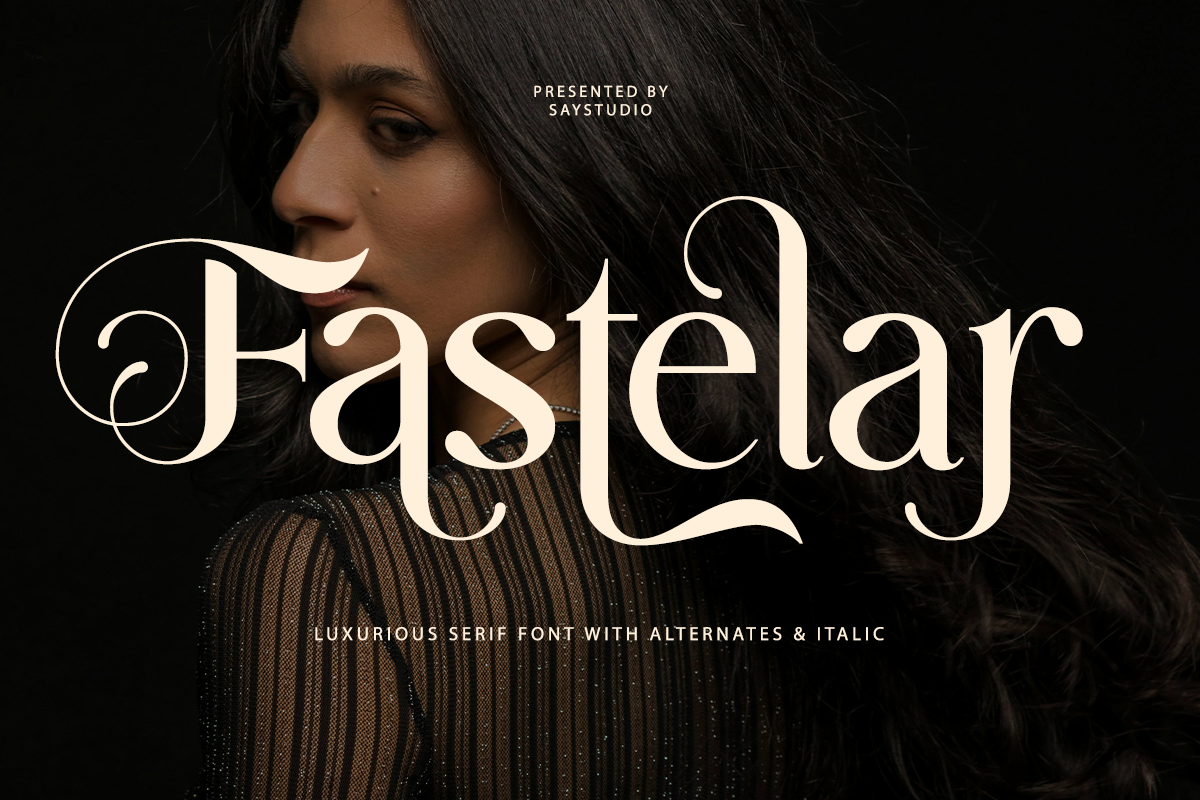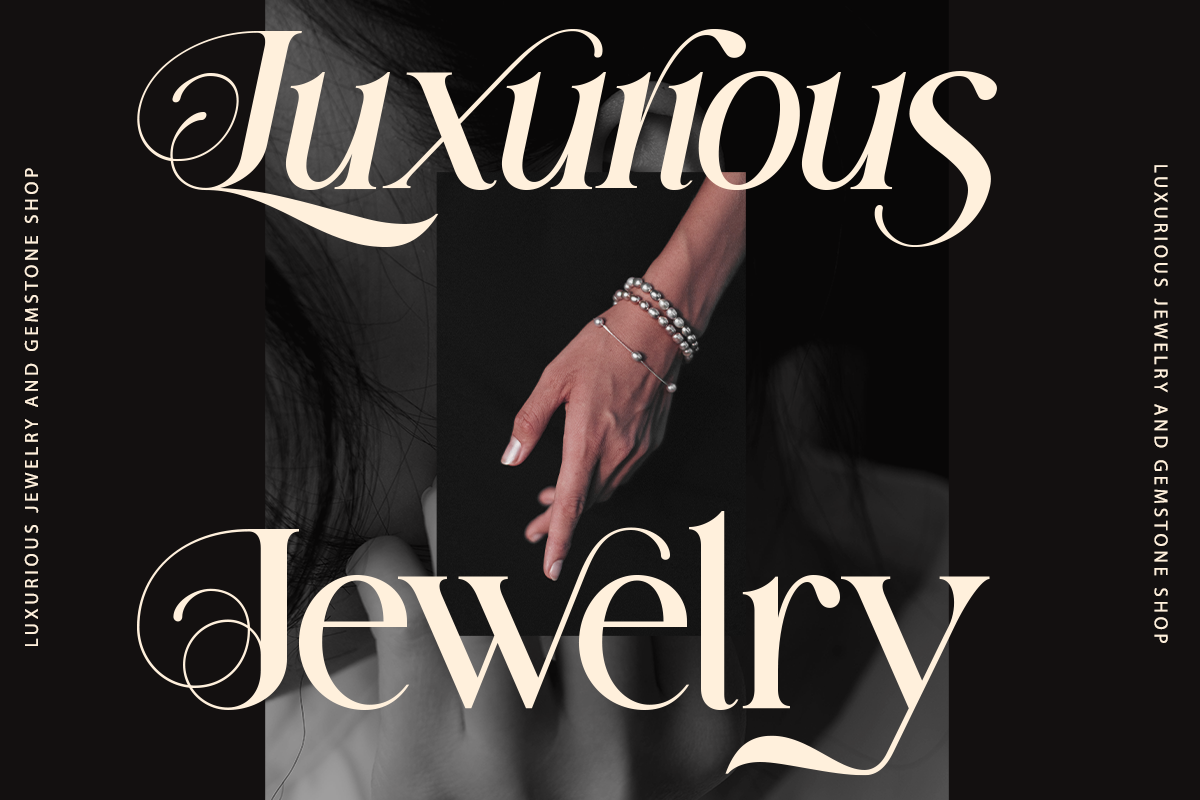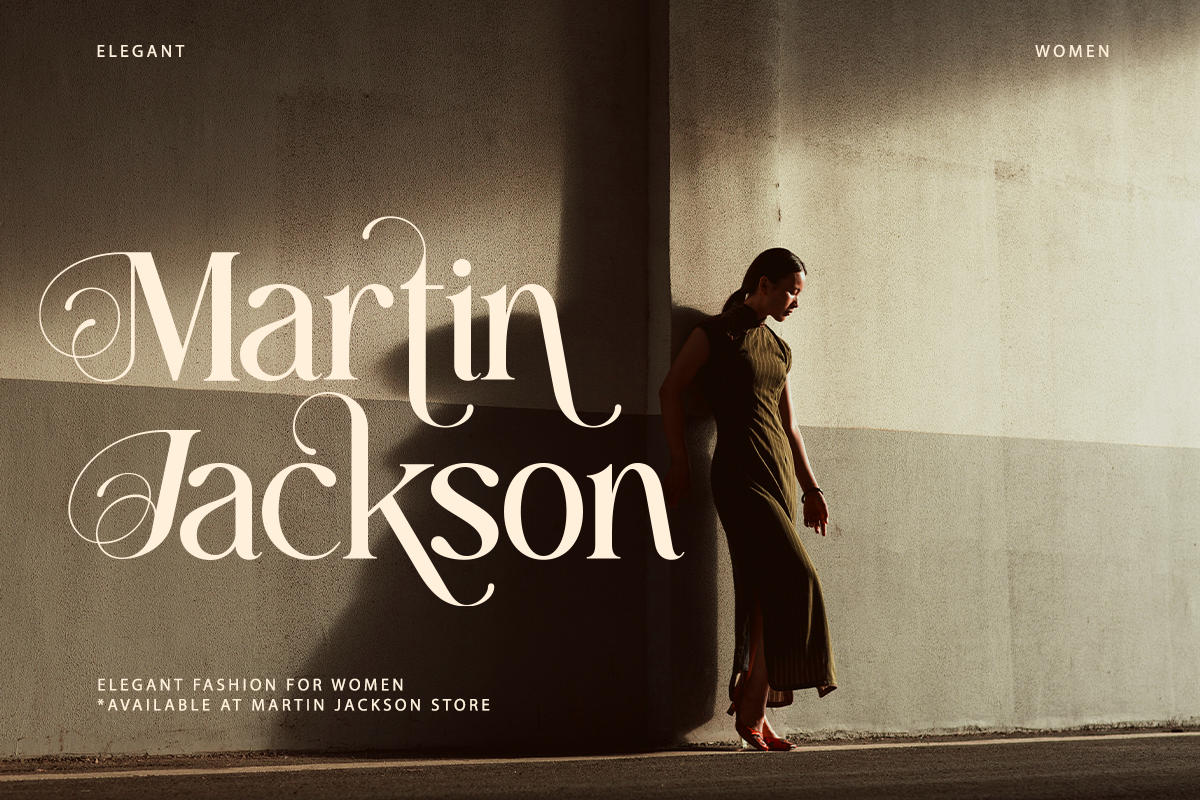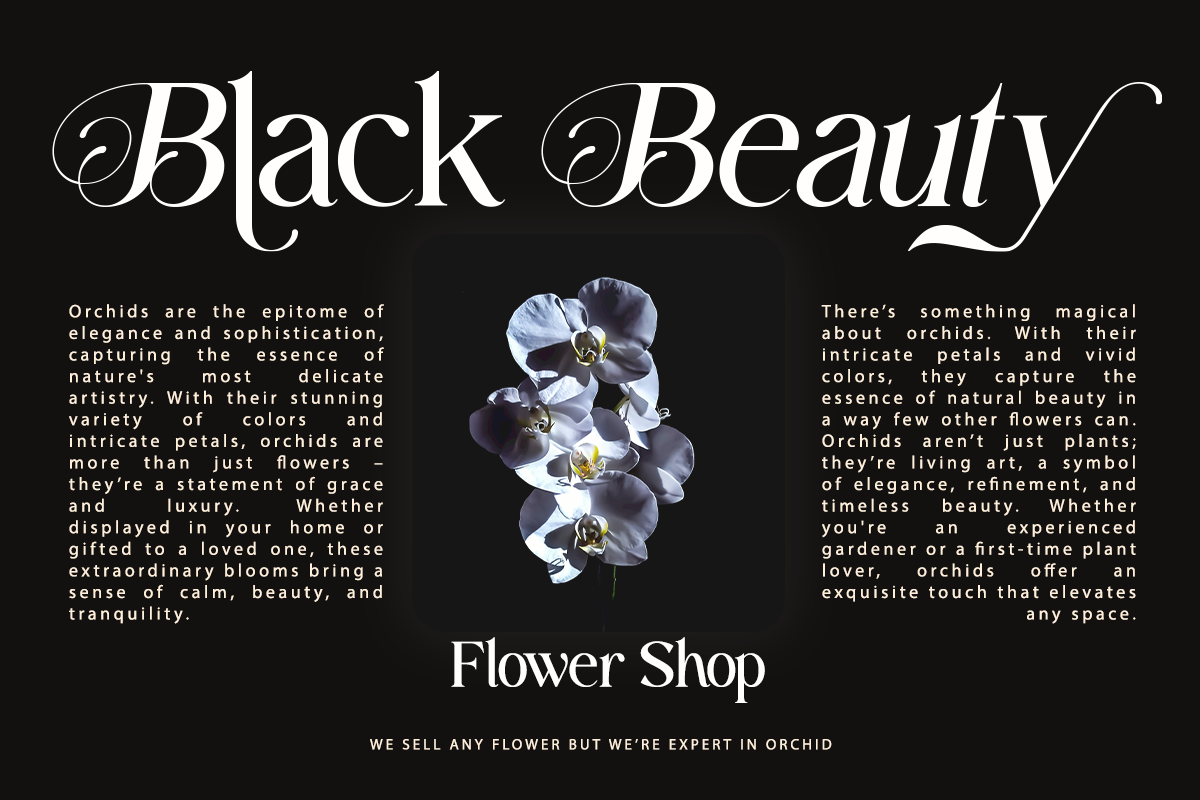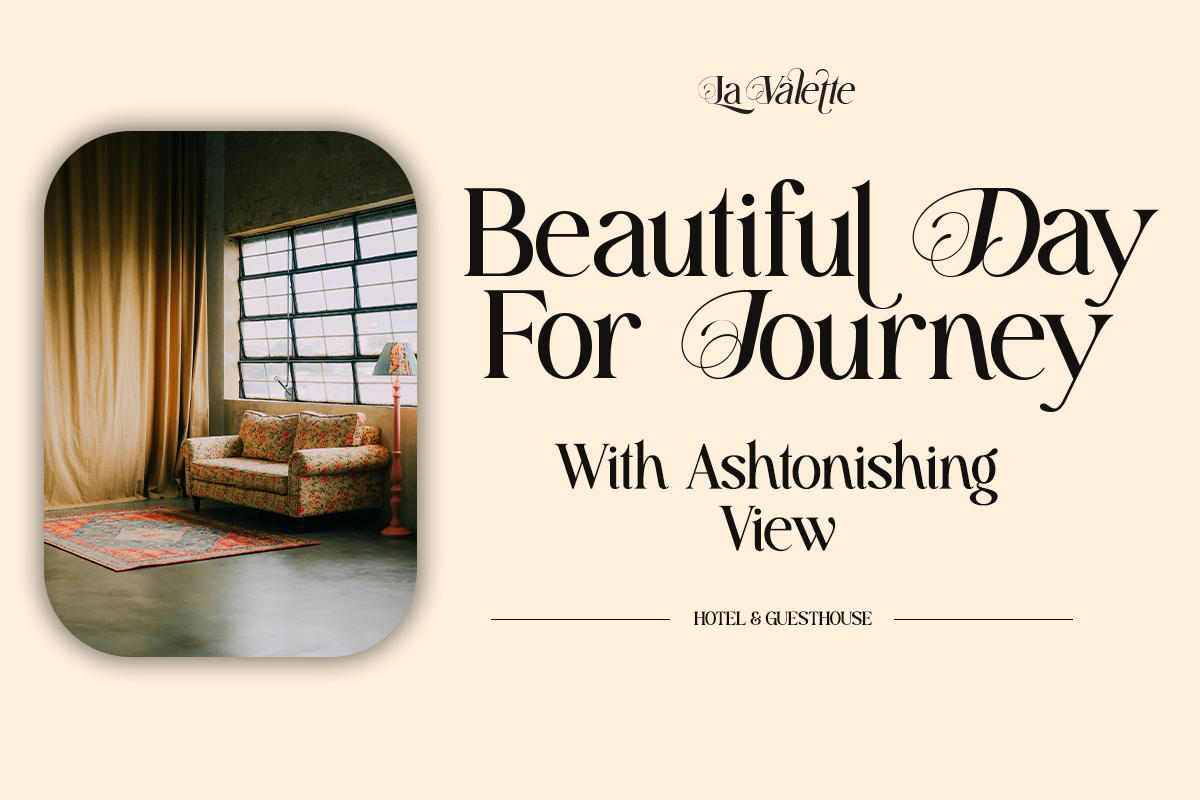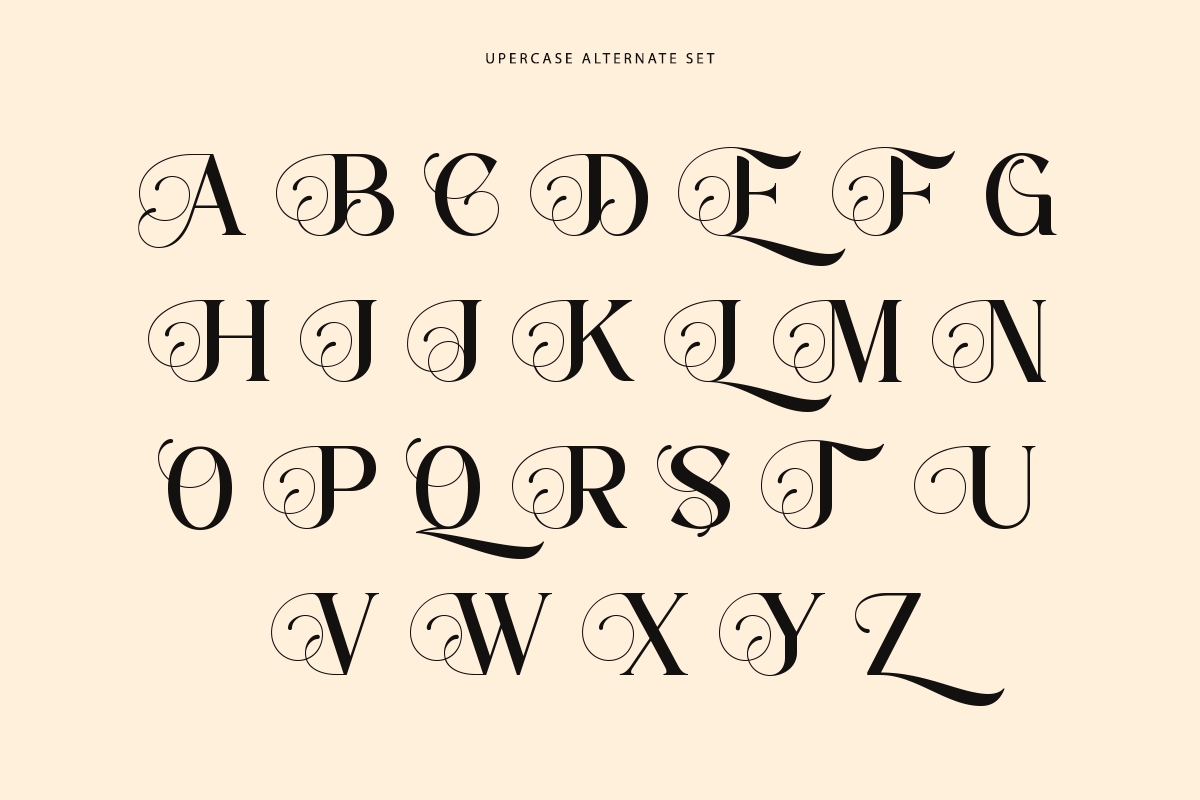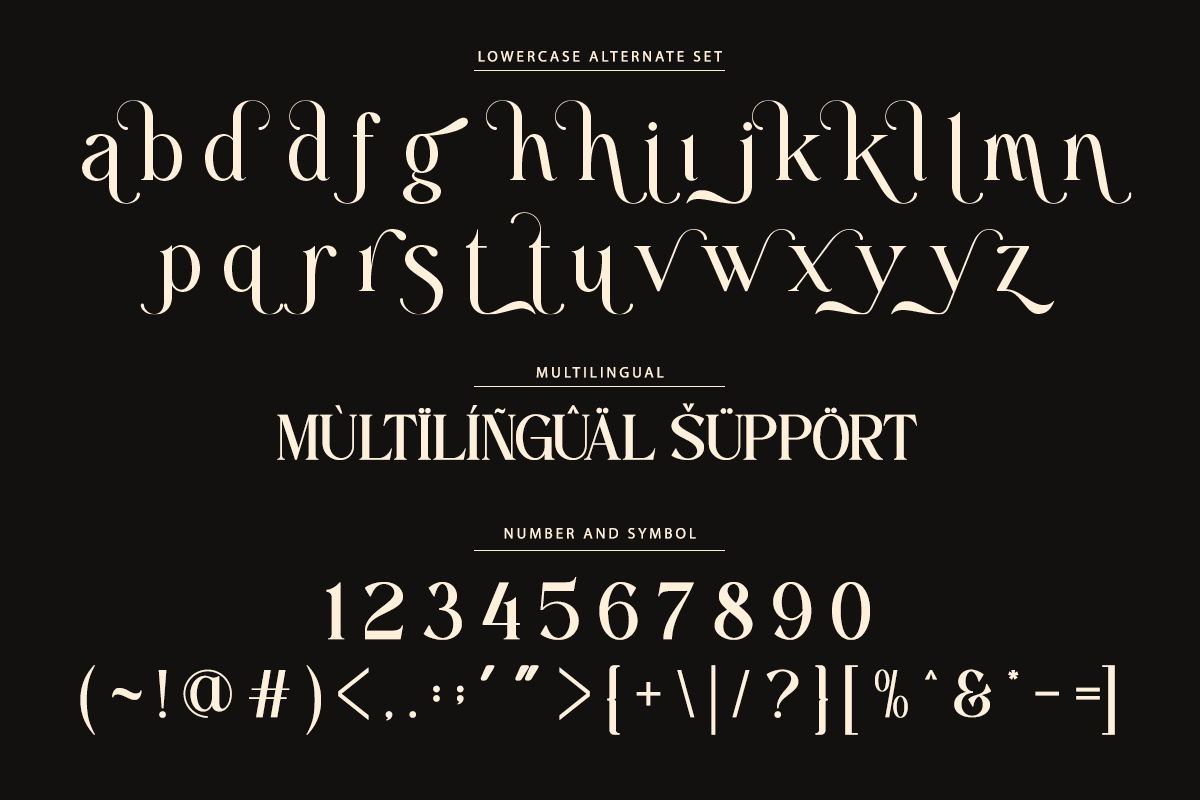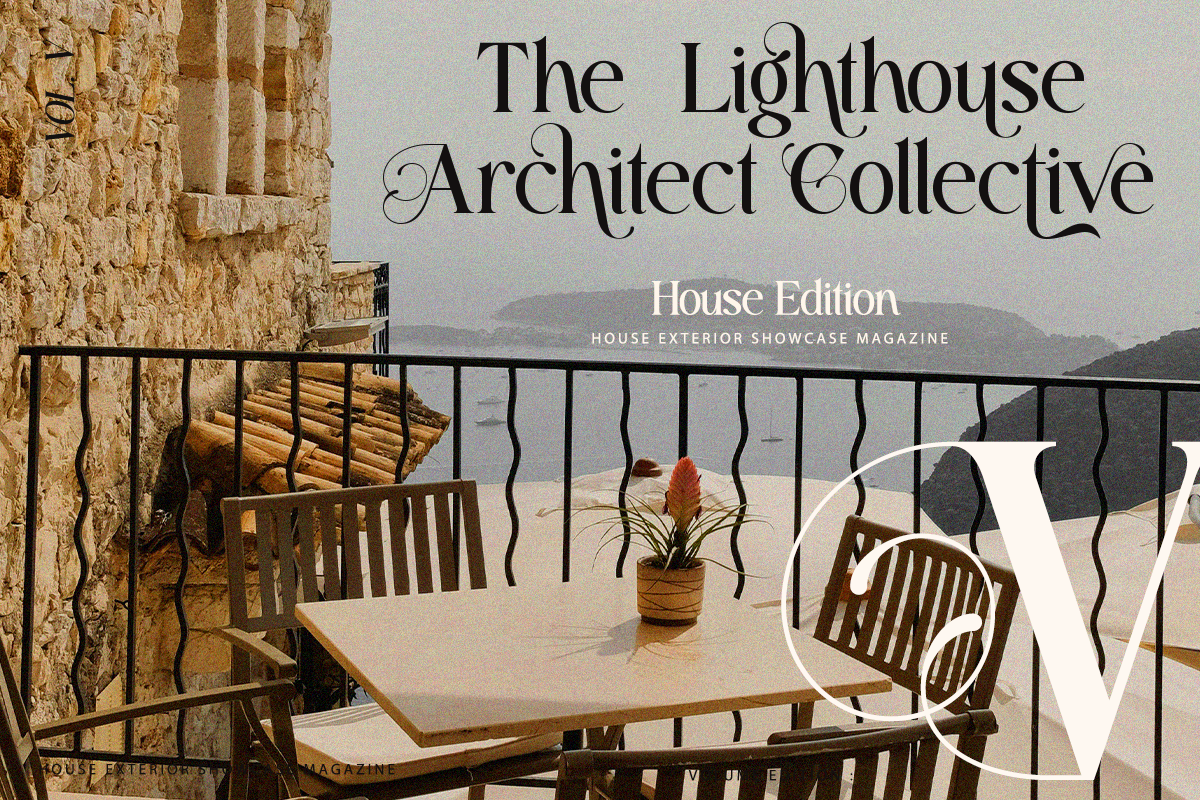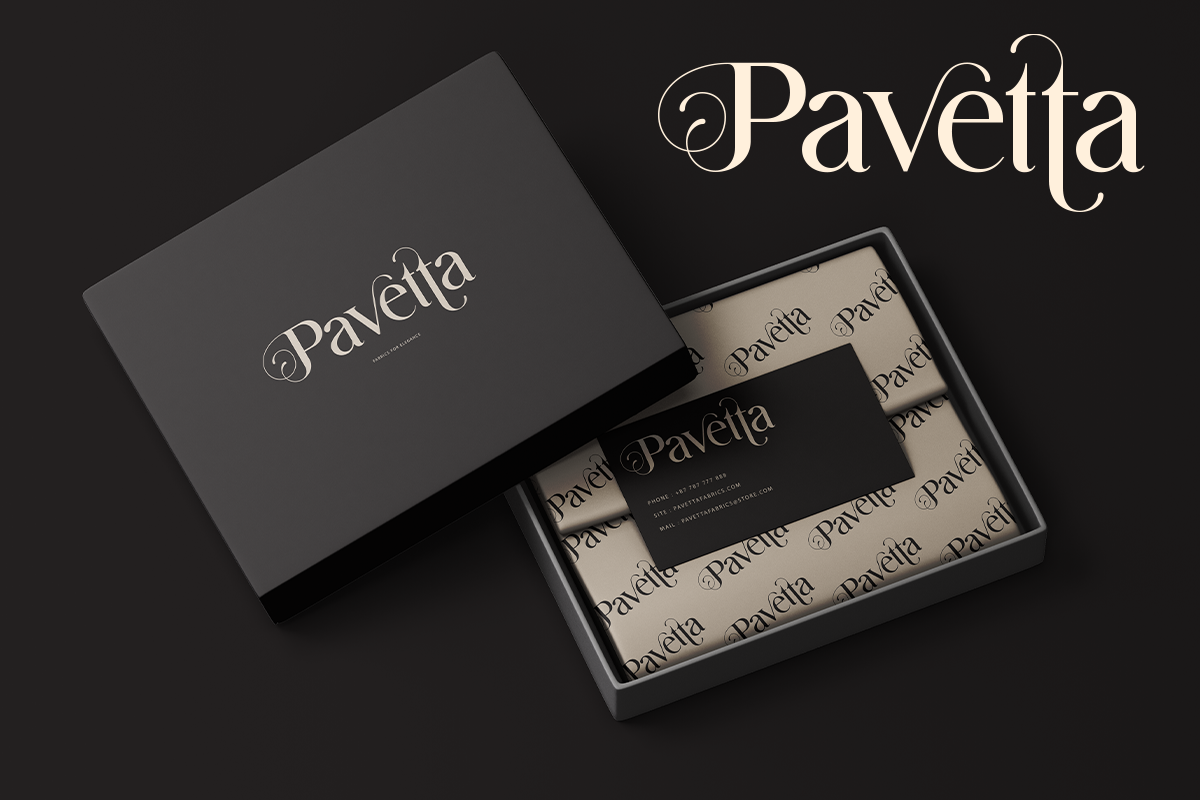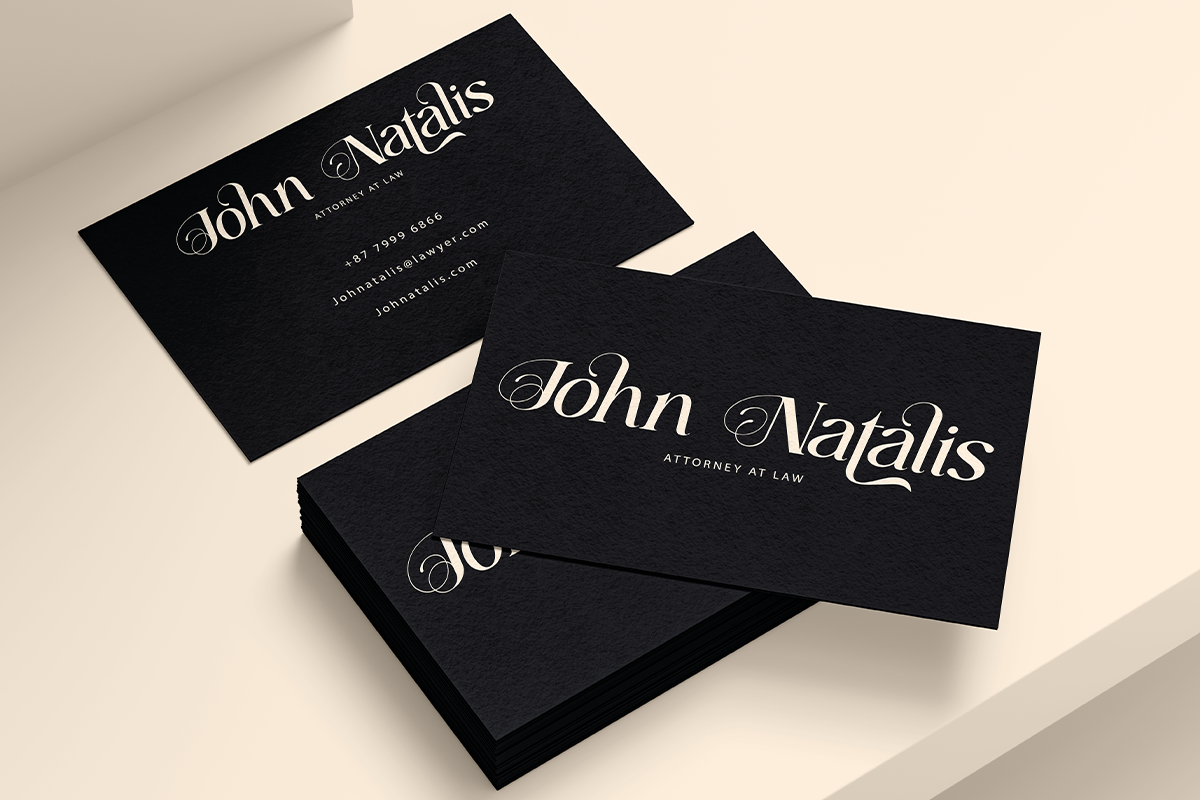
Fastelar - Luxury Branding Font
Fastelar is luxuriuous branding font designed to captivate, with high-contrast strokes and graceful curves bring an air of luxury to any project for a premium brand identity, an elegant editorial layout, or an engaging website, Fastelar ensures your design stands out. Each character is carefully shaped for strength, balance, and readability, while its true italics add fluidity and visual interest, making your text effortlessly stylish.
Designed for:
- Luxury Branding & Logos – Elevate your brand with Fastelar
- Editorial Excellence – Perfect for magazines, books, and newspapers seeking a touch of sophistication.
- Web & Digital – Optimized for clarity and impact on all screen sizes.
- Premium Packaging – Add class to product labels, invitations, and high-end stationery.
- Alternates Character